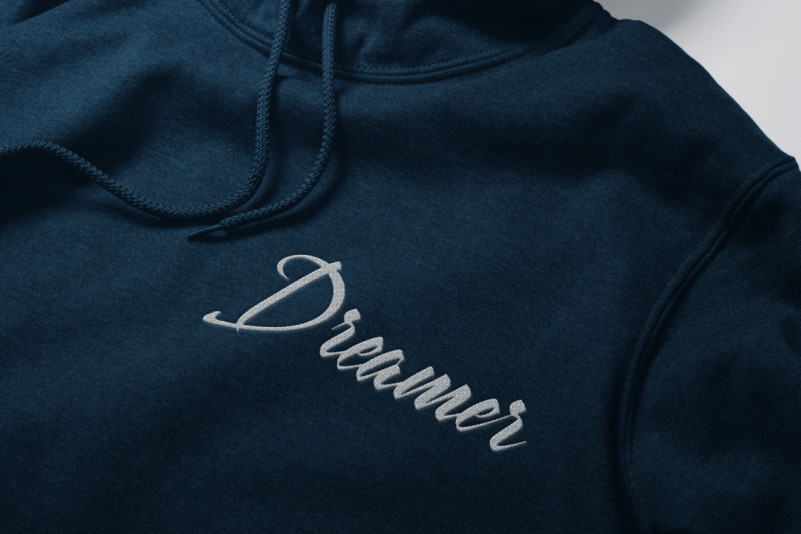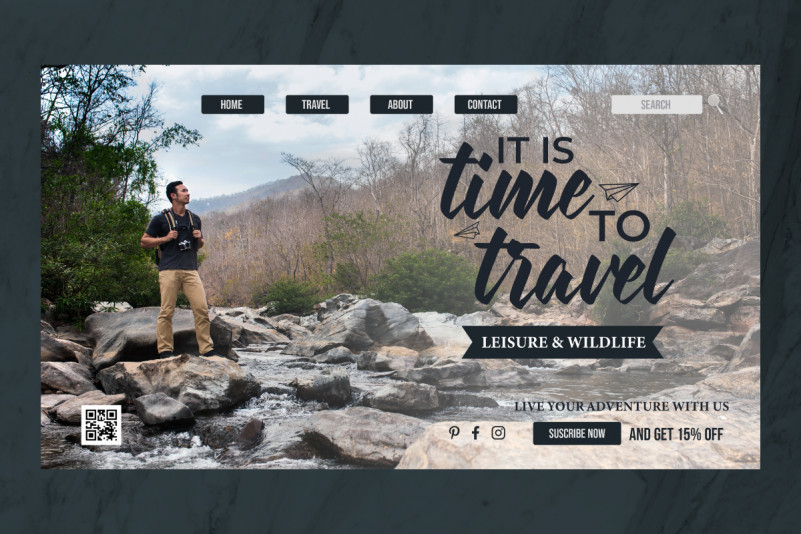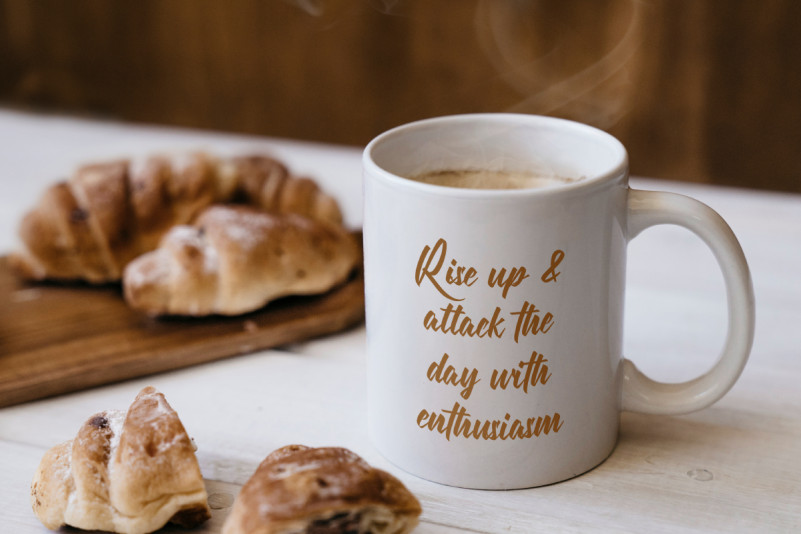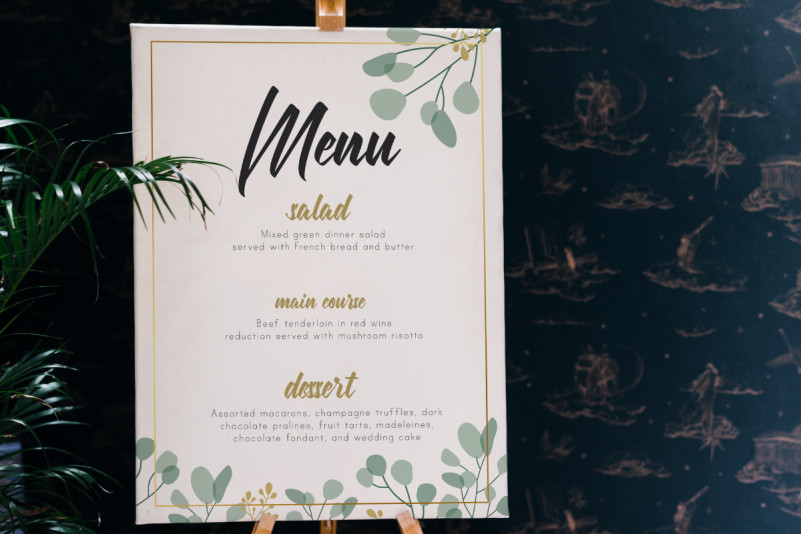
Harshey Font
Harshey Brush Font
This is a stunning handwritten calligraphy font. It has unique a flawless looks that are modern, elegant, luxurious, professional and sophisticated style. With commercial license, you can use it for logo, brandings, flyer, poster, product packaging and all designs needs.